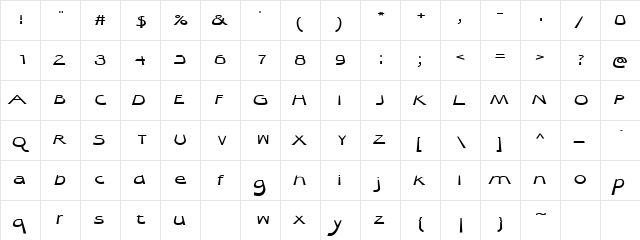
Quibel Bold
Design Context for Quibel Typeface
Quibel offers clean, dependable letterforms without strong stylistic allegiance, making it a practical choice for designers who need flexibility. Its bold stroke weight gives it real presence on the page.